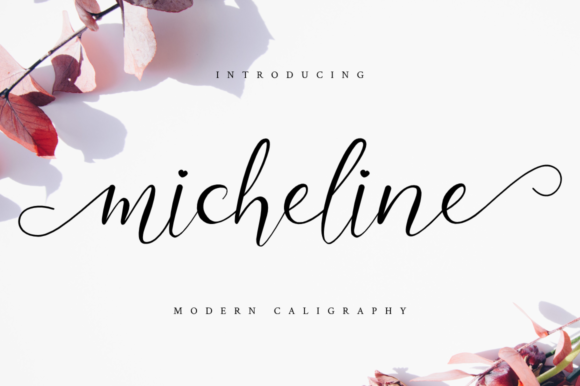
Behold, the enchanting Micheline Script, a font collection crafted by the ingenious Haffa Studio. This captivating display font, imbued with the essence of romance and elegance, will infuse your creative projects with a touch of magic that will leave you utterly captivated.
Micheline Script is more than just a font; it's an artistic masterpiece, meticulously designed with sweeping curves, delicate strokes, and harmonious letterforms that dance across the page with a graceful fluidity. This script font is a symphony of beauty, inviting you to embark on a creative journey where imagination knows no bounds.
Immerse yourself in the world of Micheline Script, where words transform into works of art, conveying emotions, stories, and messages with unparalleled grace. Its irresistibly charming style adds a touch of sophistication to any project, whether it be wedding invitations, branding materials, social media posts, or any other endeavor that calls for a touch of elegance.
With Micheline Script, your designs will blossom into captivating visual feasts, leaving a lasting impression on your audience. Its versatile nature allows it to effortlessly adapt to a myriad of projects, from heartfelt love letters to whimsical invitations, from captivating blog posts to alluring marketing campaigns.
Unleash the boundless potential of Micheline Script and watch as your creative visions come to life, imbued with an enchanting allure that will captivate and inspire. Embrace the magic of this font and elevate your designs to new heights of beauty and elegance.